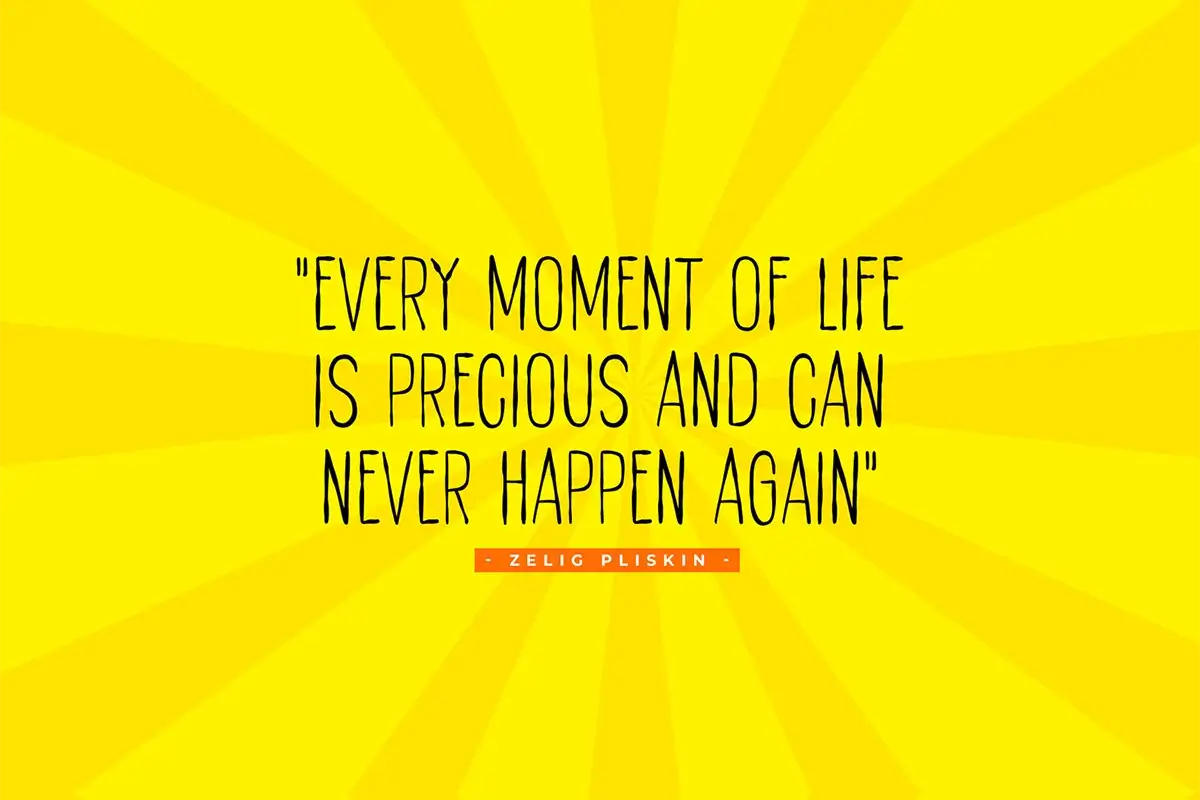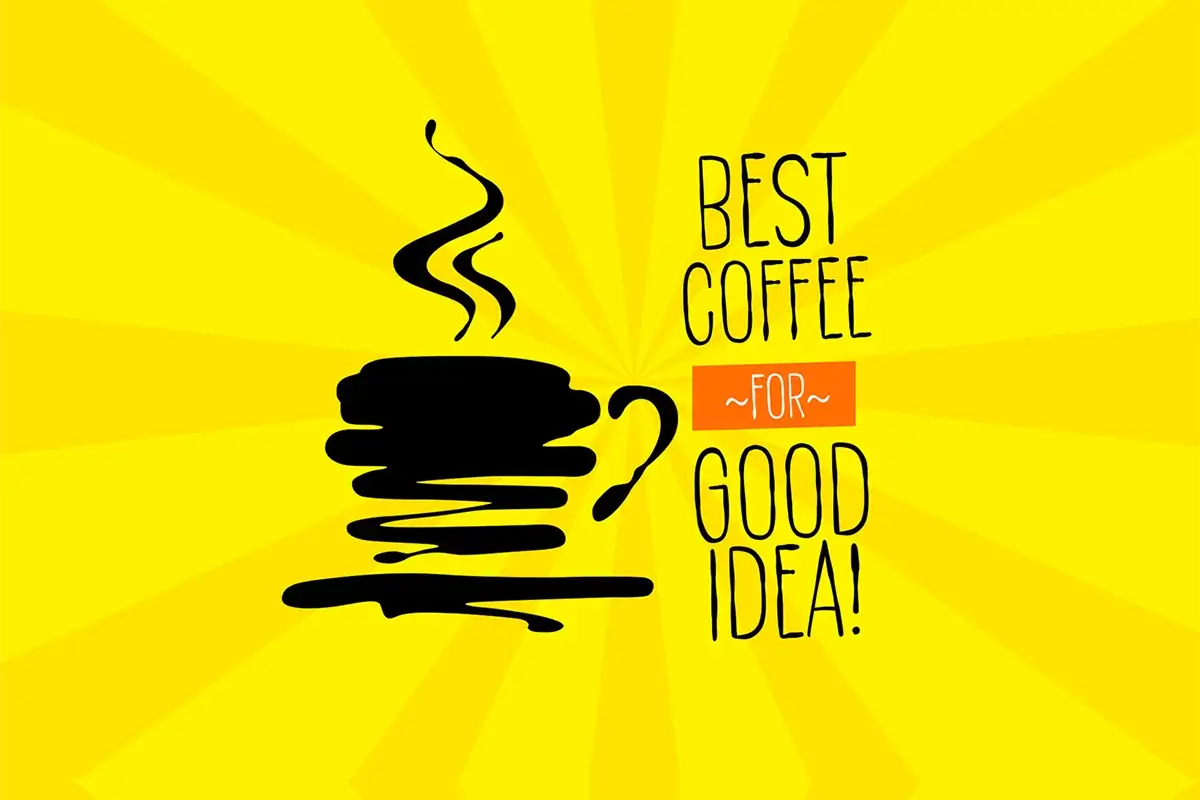
Smart Duck Font – Handwriting Typeface
Smart Duck Font is a simple, playful and charming thin handwriting typeface that exudes a sense of warmth and creativity and will add a touch of authenticity to any design.
It comes with uppercase, numbers, punctuation, and symbols in OTF and TTF. This font is great to use for stationery, notes, baby products, school, quotes, branding, logos, social media posts, advertising, product packaging, wedding invitations, product designs, labels, photography, watermarks or just about anything else.